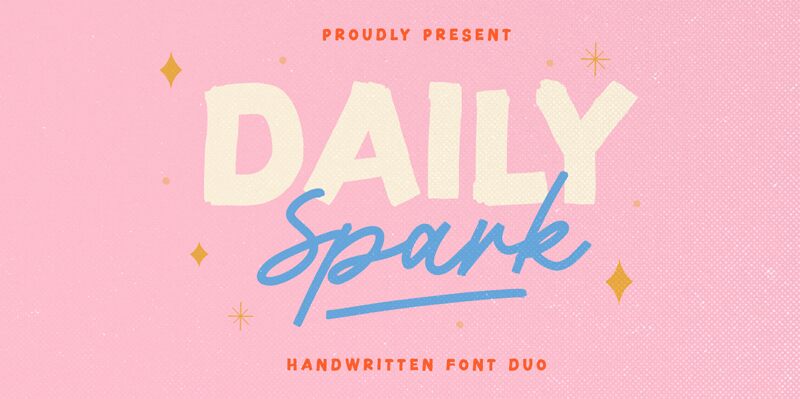
Daily Spark Sans by Saridezra is a display font that bursts with character and charm. Its bold, cartoon style exudes a playful energy perfect for injecting life into any creative project. With a duo of complementary typefaces-Bold Sans and Script-this font package offers versatility that can seamlessly transition from whimsical branding to eye-catching merchandise. The handcrafted feel of Daily Spark Sans makes it an ideal choice for crafting memorable quotes that stand out.
Whether used in digital designs or printed materials, this font brings an unmistakable vibrancy suited to designers aiming to spark joy and engagement through their work.